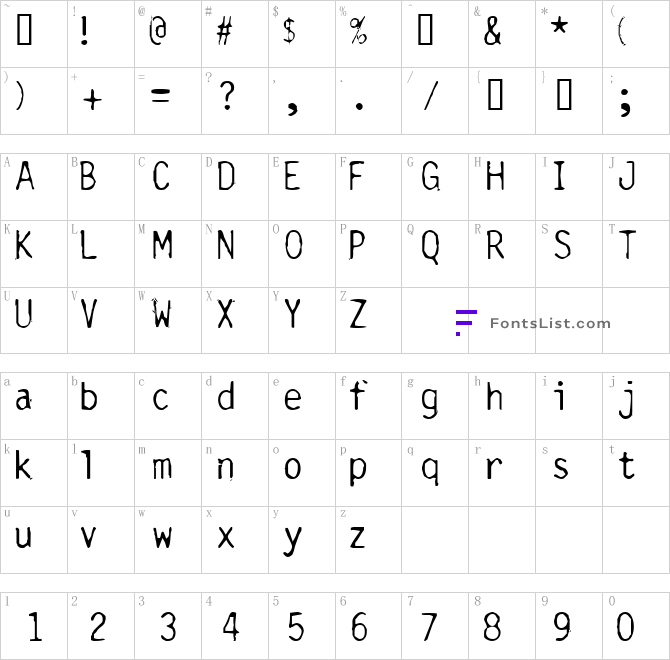
- Font Name:Carbonated Gothic
Carbonated-Gothic.ttf is a very beautiful artistic font, Carbonated-Gothic.ttf is widely used in the design and printing of various books and pictures,Carbonated-Gothic.ttf has a strong visual impact,Carbonated-Gothic.ttf is a commonly used font in newspapers, magazines and books, and is used in posters, e-commerce Poster design, store design, logo design, font design and other fields.Carbonated-Gothic.